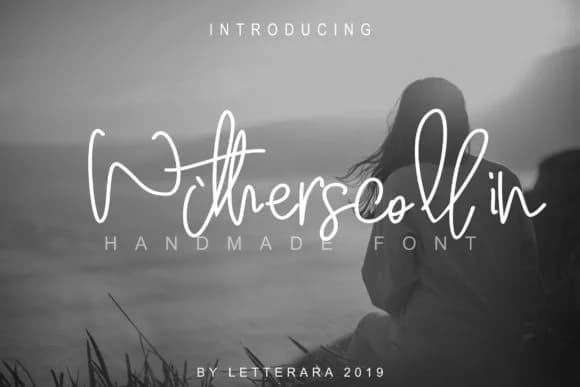
Witherscollin by thomasaradea is a dynamic handwritten script that balances personality with genuine usability. It comes with multiple weights (regular, bold, italic, and bold italic), so you have room to layer and contrast without switching fonts. The letterforms feel organic and human without sacrificing readability, making this one of those rare scripts that actually works at multiple sizes and applications.
This is the font to reach for when you're designing wedding invitation suites, artisanal product packaging, or personalized stationery that needs to stand out in a crowded market. Small-batch cosmetics brands, independent fashion labels, boutique coffee roasters, and handcrafted goods all benefit from its natural flow. It works just as well for greeting card lettering, clothing hang tags, and Instagram Stories typography, wherever you want words to feel written by someone who cares about the details rather than generated by algorithm.
Witherscollin Family Font is a script font that shines as a display or heading face. Pair it with a clean sans-serif or serif font for body text — the contrast creates a clear hierarchy while the two styles stay balanced and easy to read.
Witherscollin Family Font
by thomasaradea